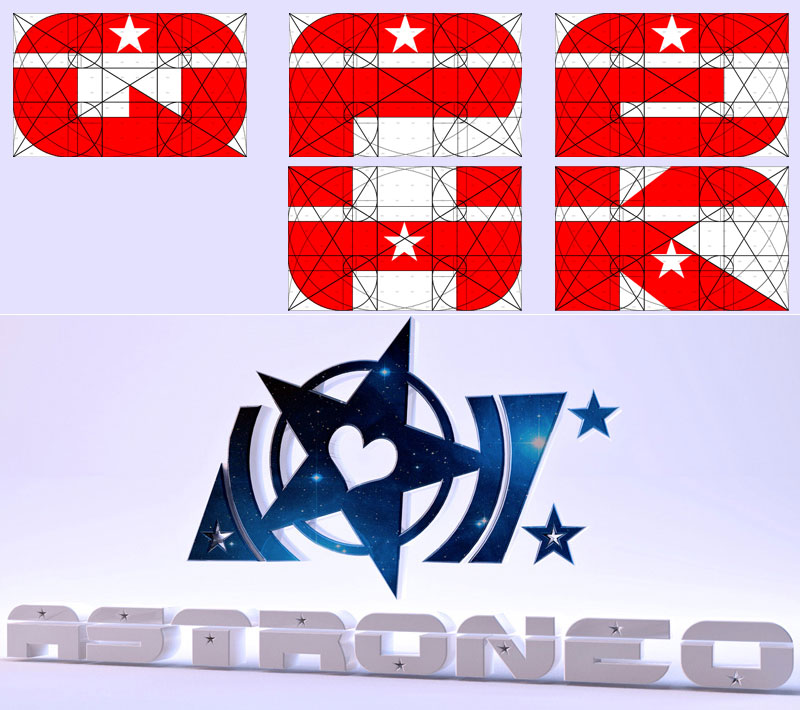
Astroneo Font - Typography The first modern font based on Golden Ratio, Proportions used in Aesthetics, Arts, Mathematic, Paintures, Music, Industrial design and Nature. Other names frequently used for the golden ratio are the golden section (Latin: sectio aurea) and golden mean.Other terms encountered include extreme and mean ratio, medial section, divine proportion, divine section (Latin: sectio divina), golden proportion, golden cut, golden number, and mean of Phidias. Website : http://www.systemaker.com |